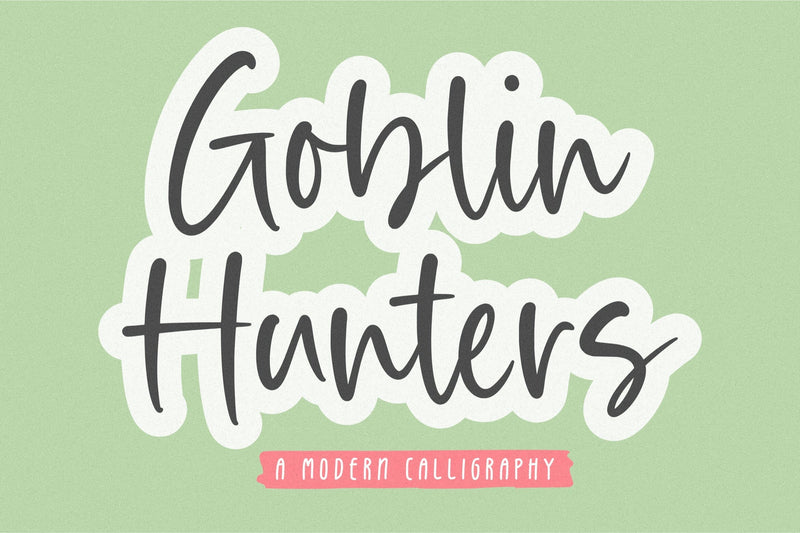
Goblin Hunters a Modern Calligraphy Font
Goblin Hunters is a Modern Calligraphy Font.
Whether you’re using it for crafts, digital design, presentations, or making greeting cards, this font has the potential to become your favorite go-to font, no matter the occasion!